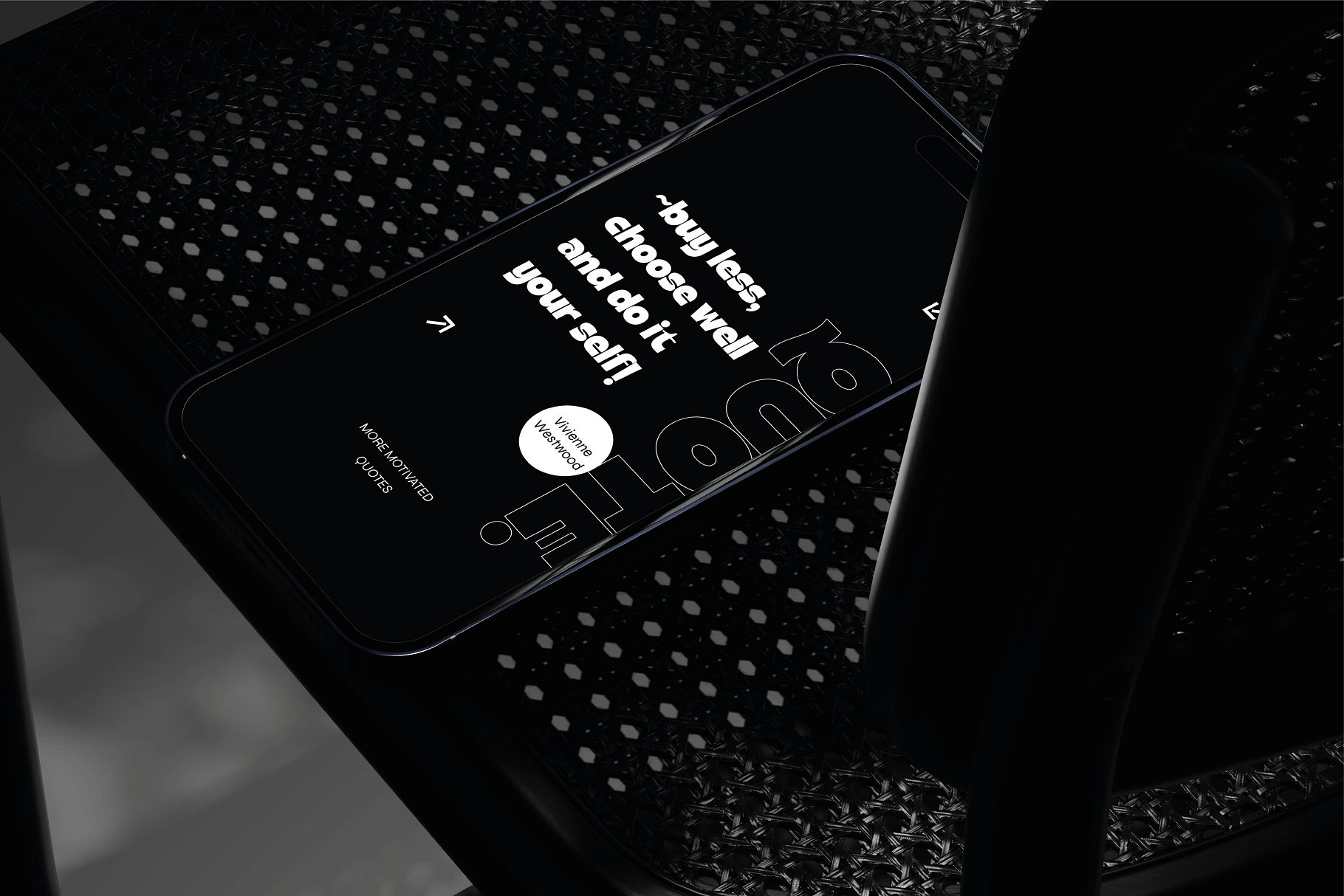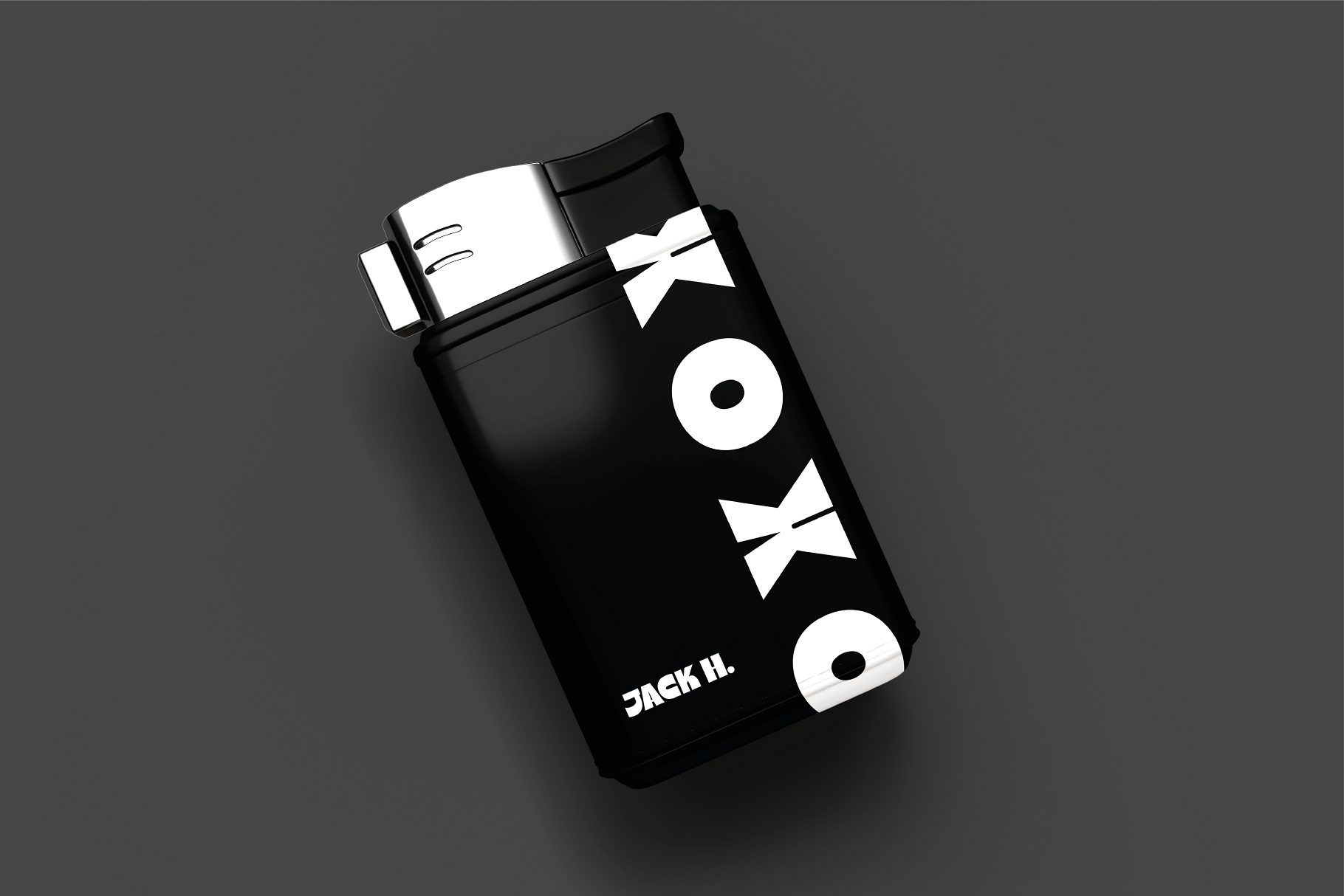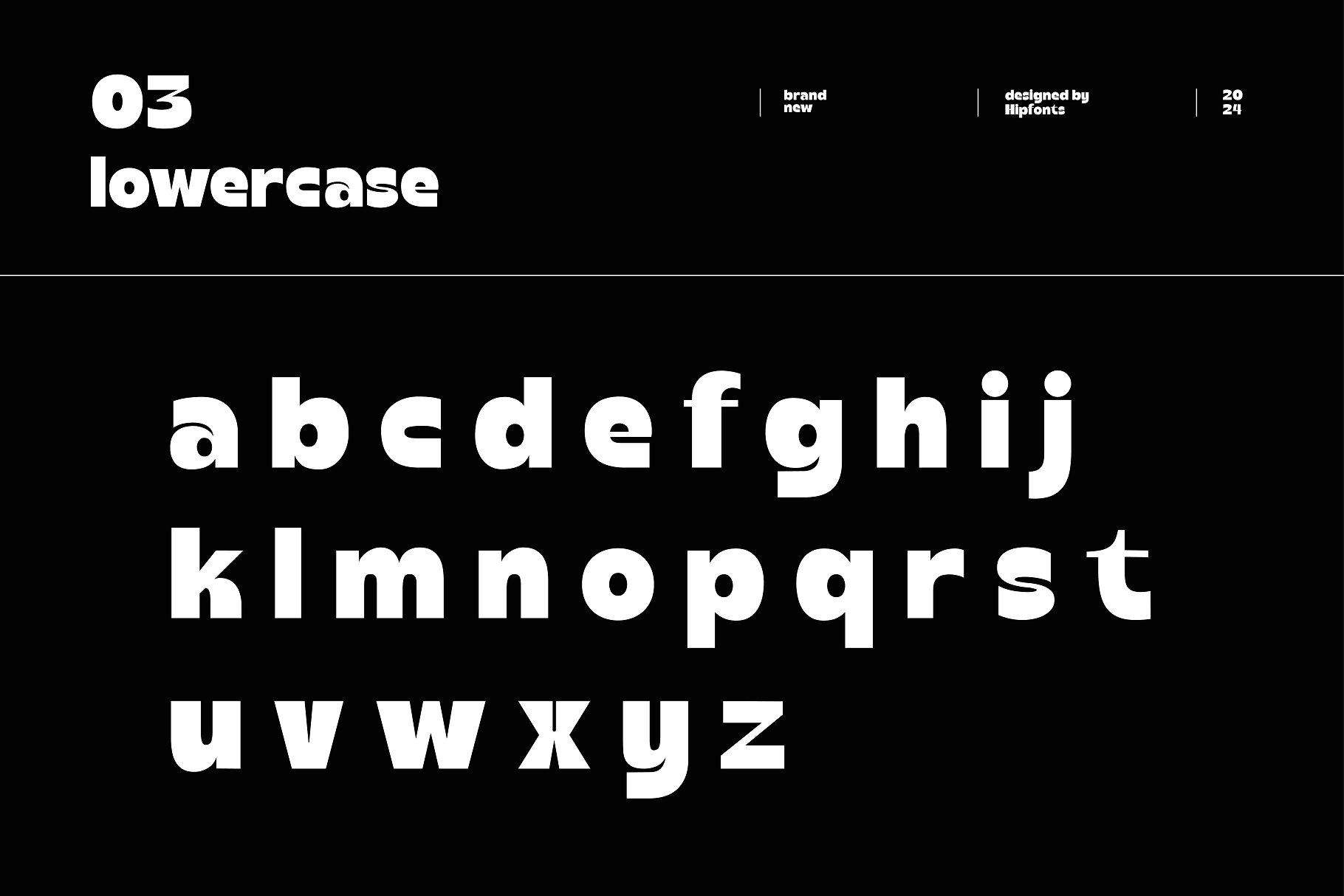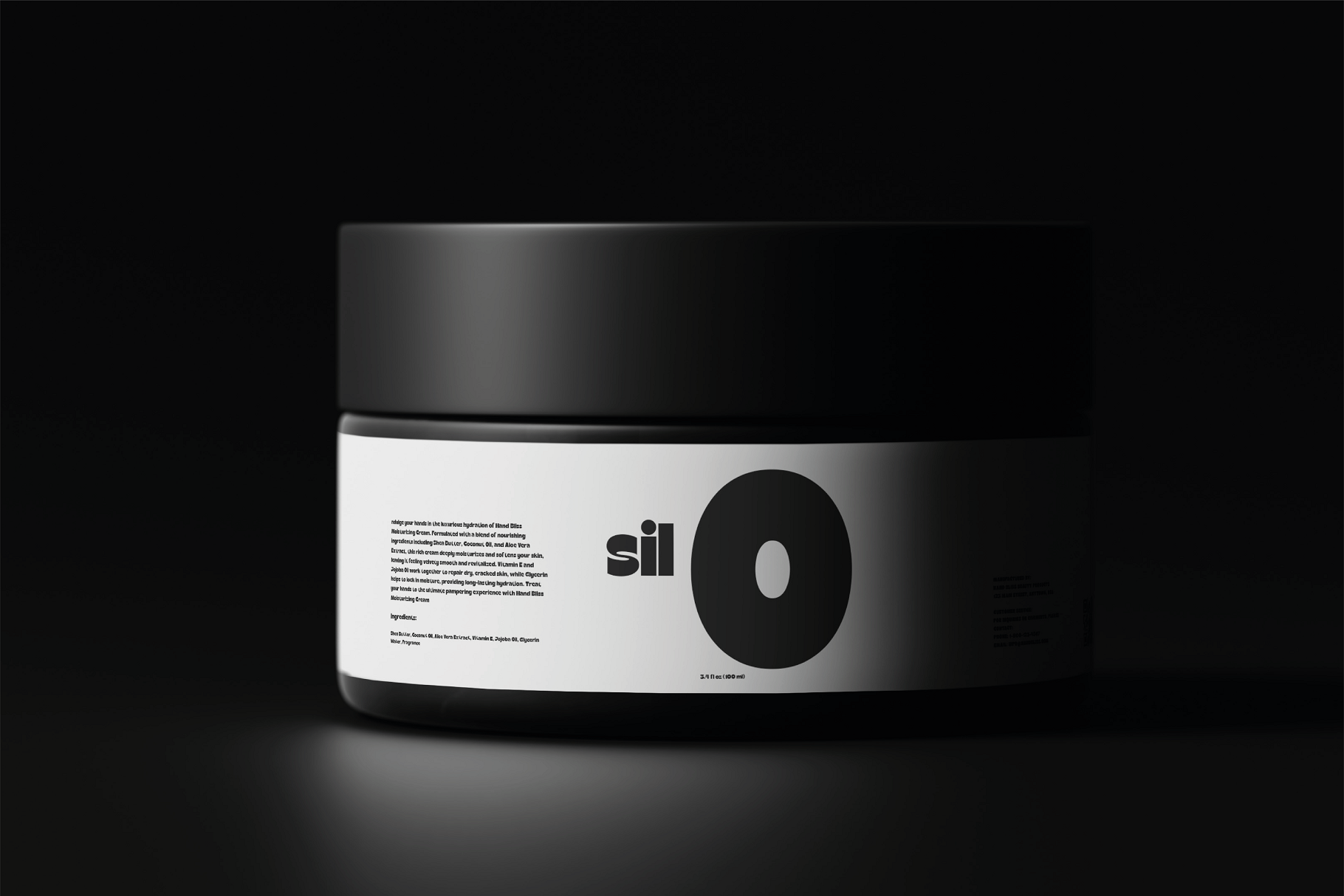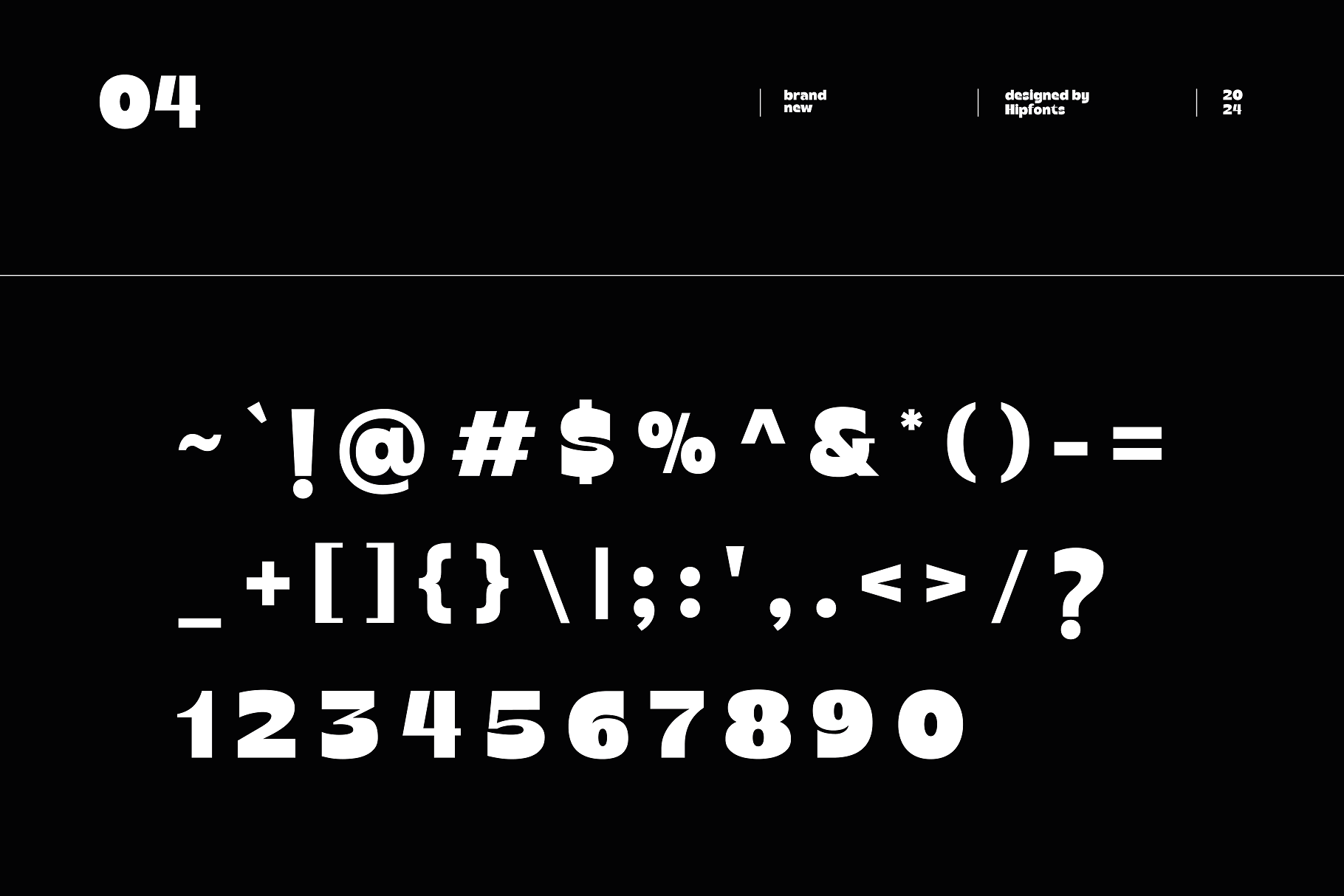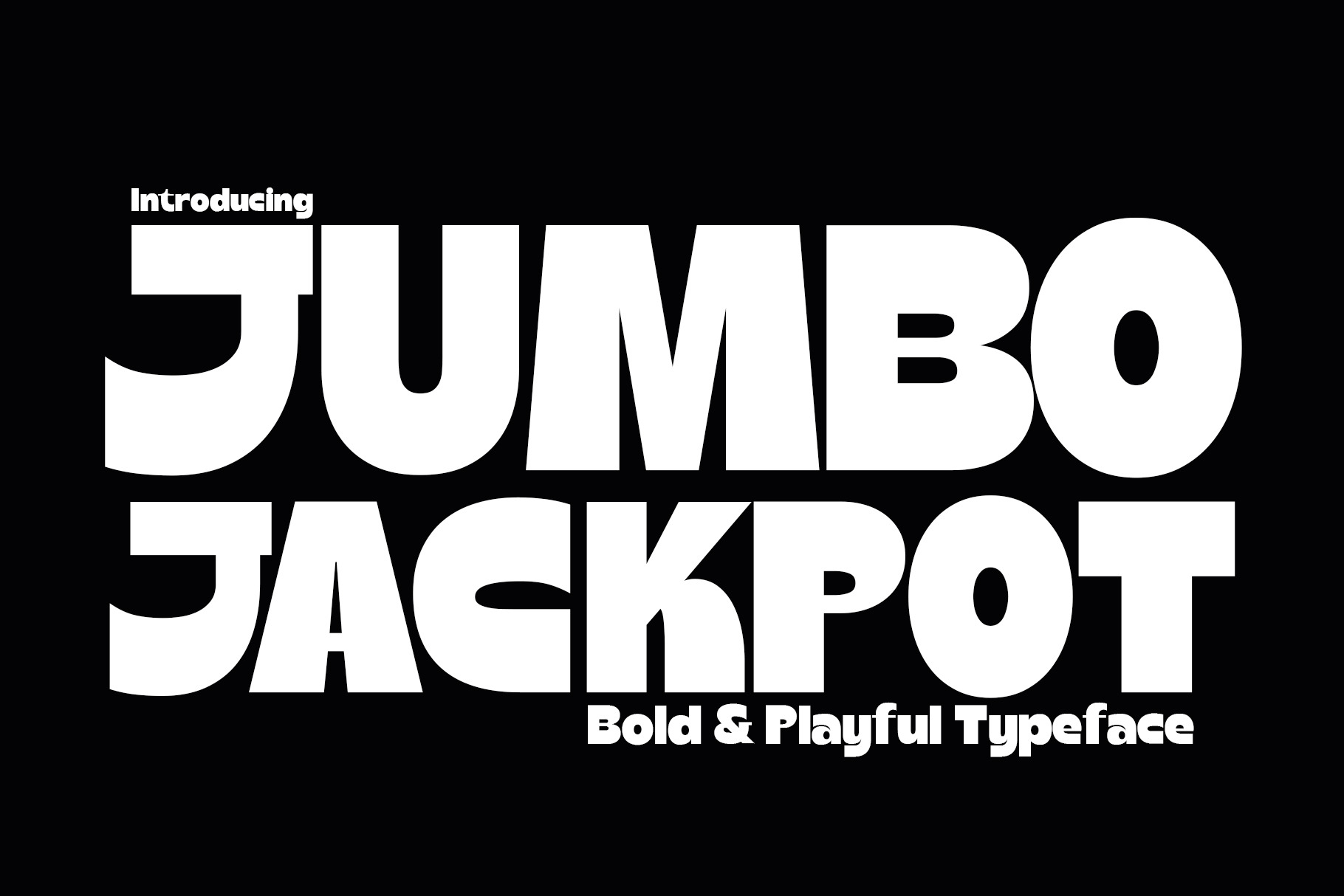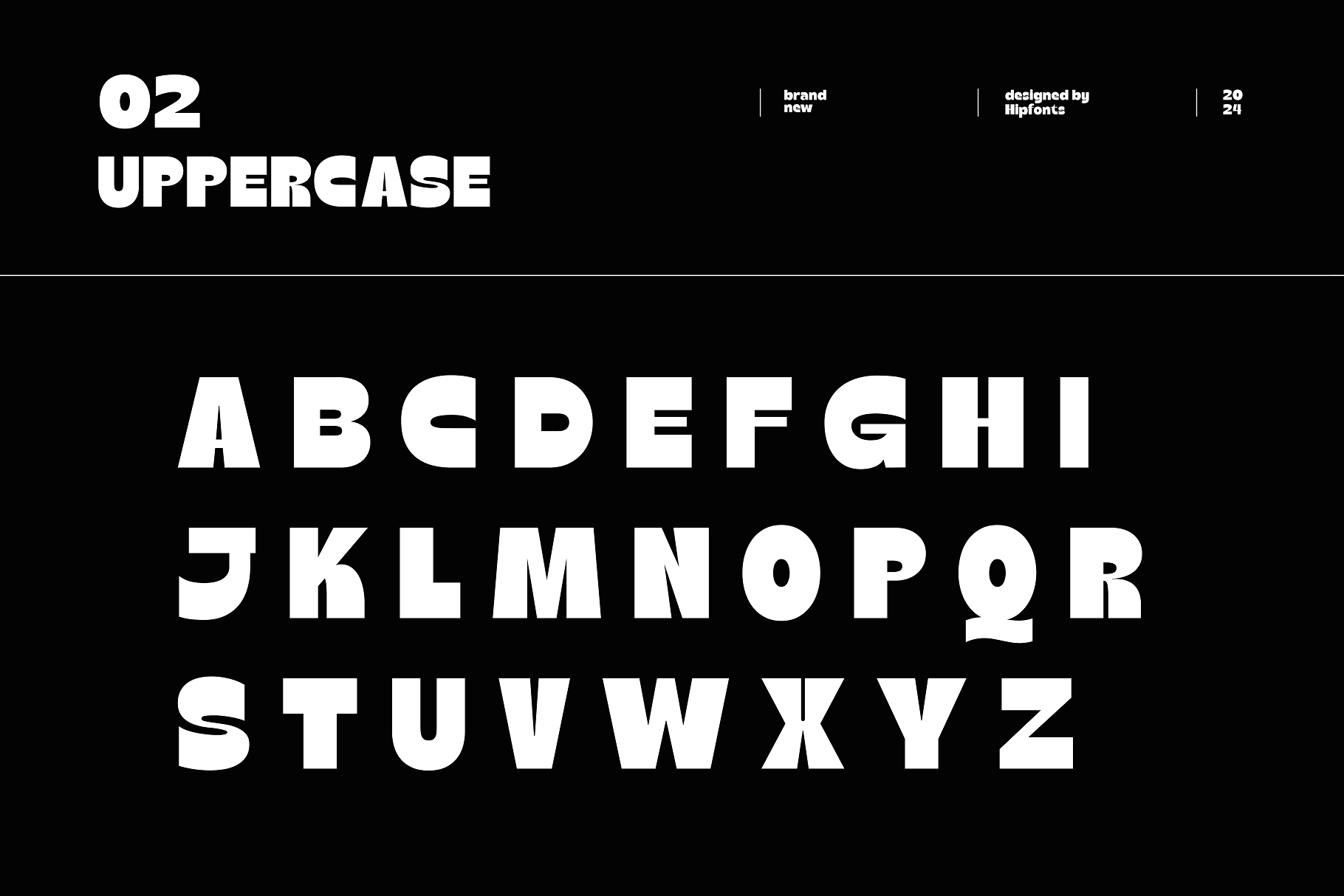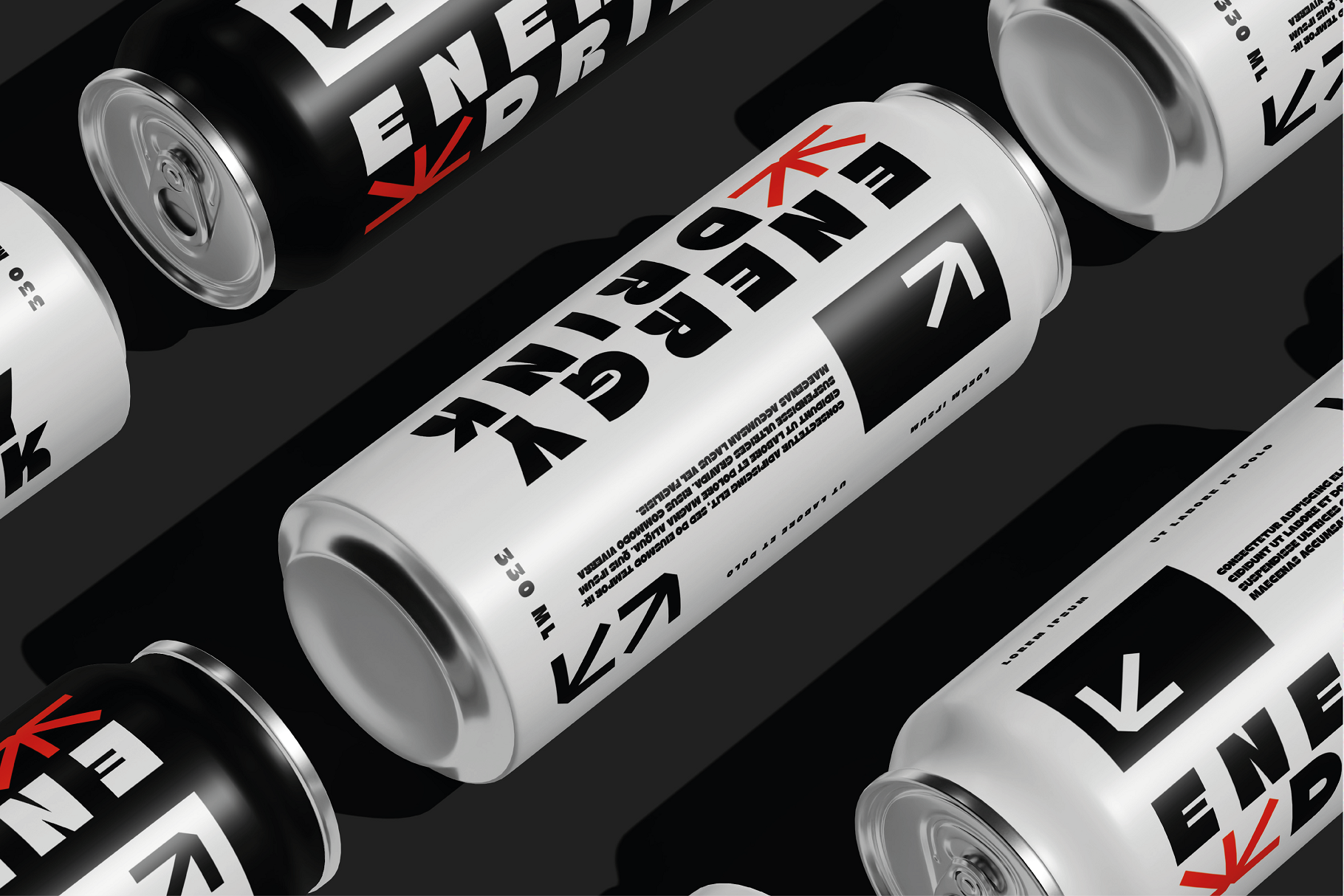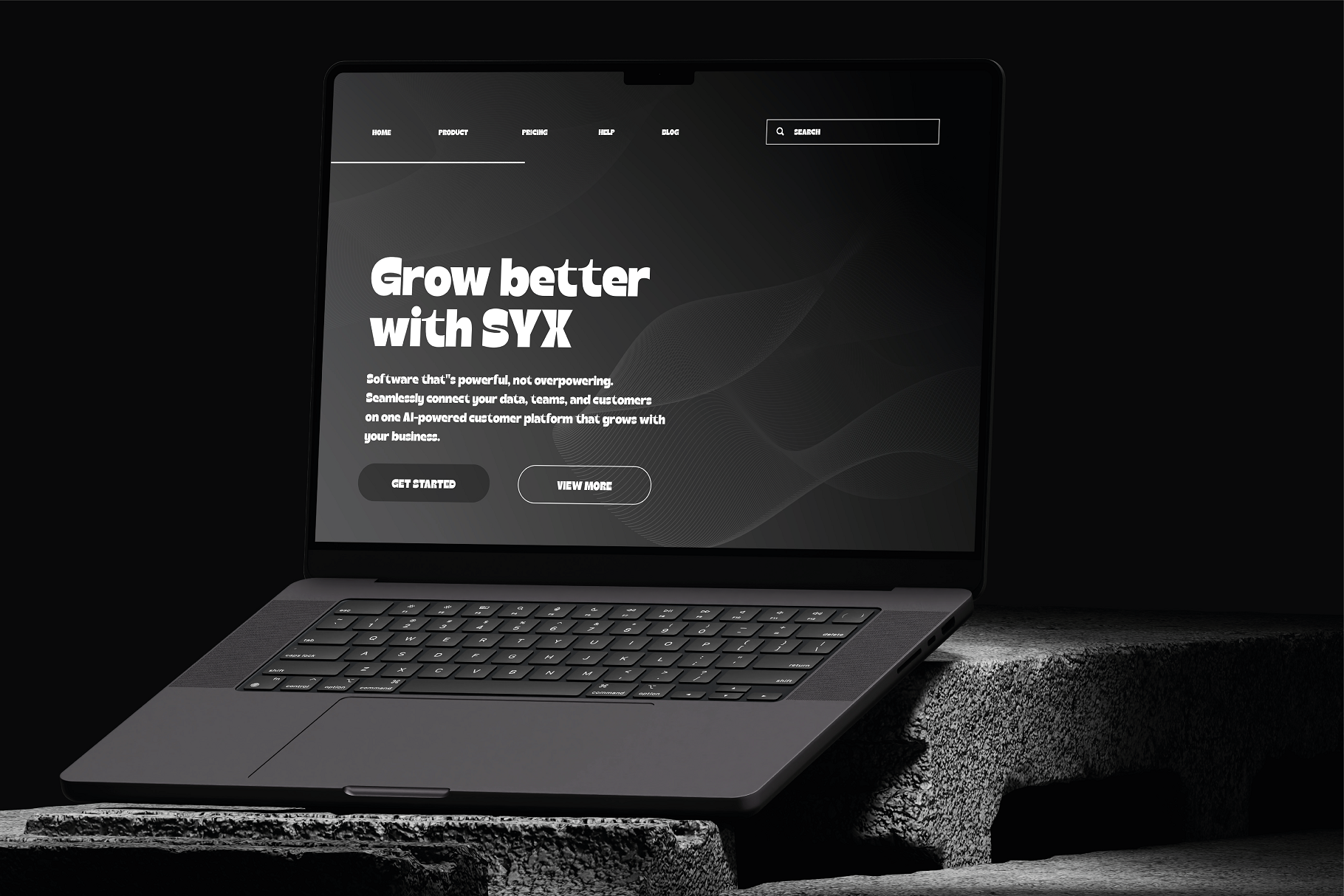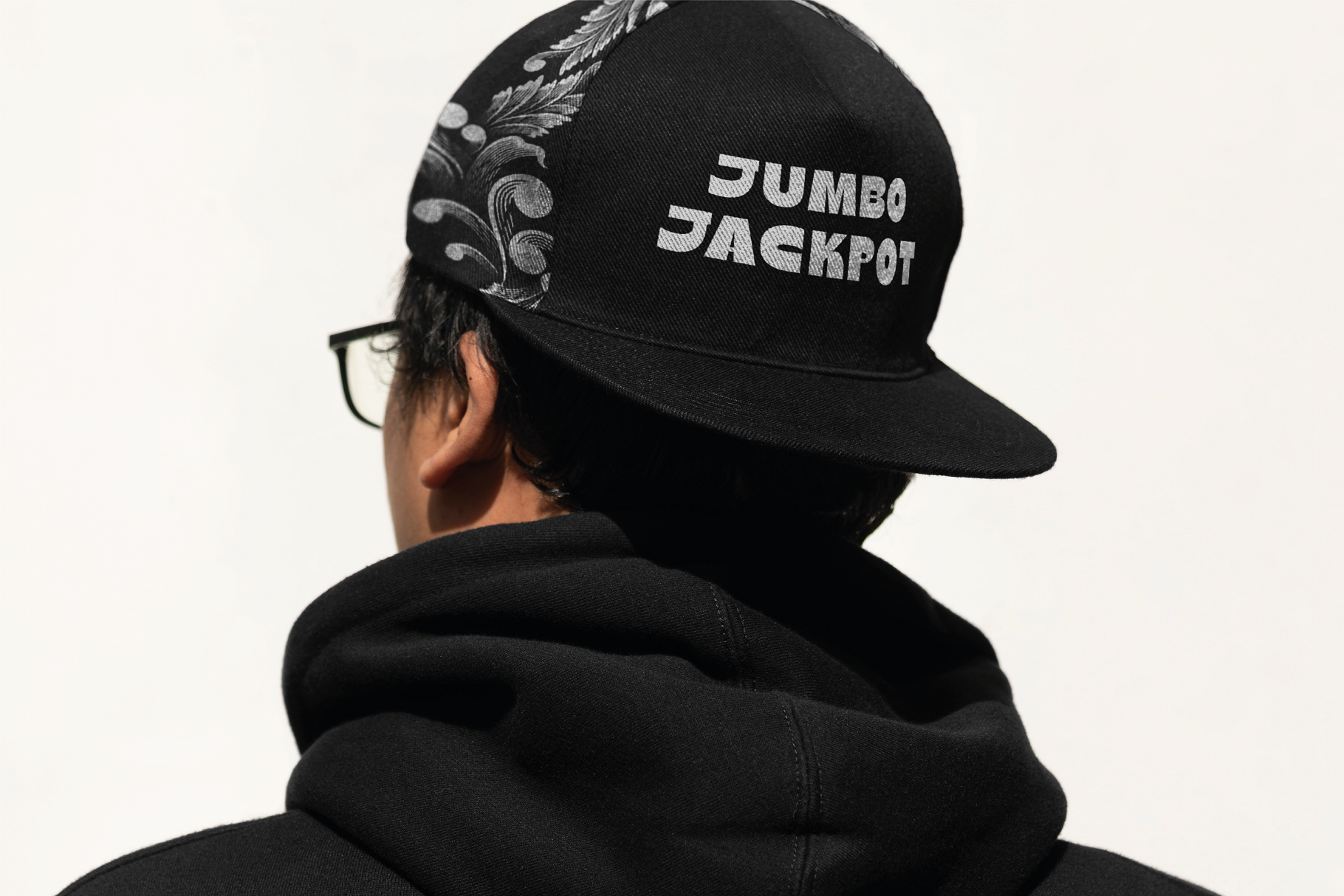
Introducing Jumbo Jackpot, the typeface designed to make a bold statement! This modern, thick, and bold typeface is perfect for those looking to add a touch of quirkiness and playfulness to their projects. Whether you're designing eye-catching headlines, vibrant posters, or unique branding materials, Jumbo Jackpot delivers unmatched impact and personality. Its contemporary style and whimsical charm make it the go-to choice for creatives who want to stand out and capture attention. Get ready to hit the jackpot with Jumbo Jackpot – where bold meets fun! | Jumbo Jackpot - Playful Typeface | HipFonts